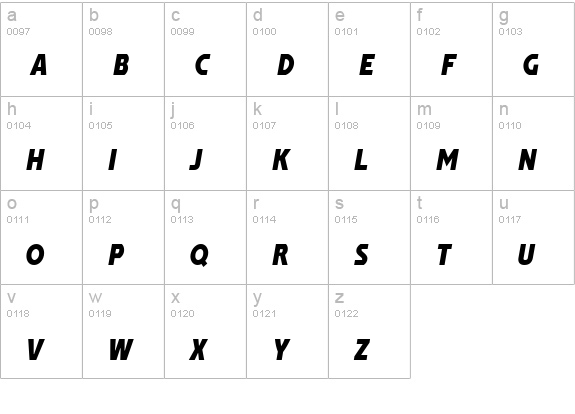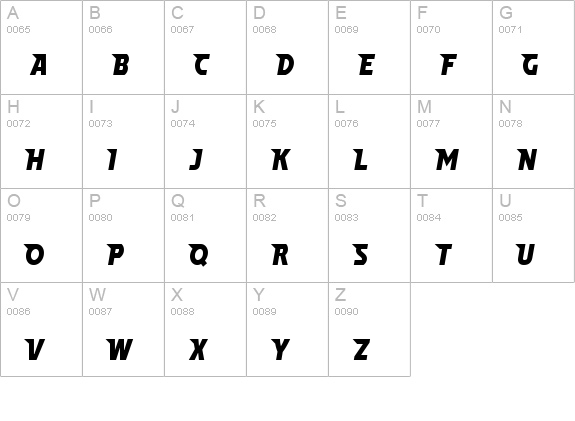
Windpower Font Details
Windpower font is a modern sans-serif typeface that exudes elegance and sophistication. With its sleek lines and contemporary style, this font is perfect for a wide range of design projects, from logos to branding to website design. The clean and minimalist aesthetic of Windpower makes it a versatile choice for both print and digital applications. What sets Windpower font apart is not just its striking design, but also the fact that it is available for free. Yes, you read that right – you can download Windpower font for free at FontsMarket.com. This means that you can enhance your projects with a high-quality font without having to spend a dime. Whether you're a designer looking for a new go-to font or just someone who appreciates beautiful typography, Windpower font is sure to impress. Don't miss out on the opportunity to elevate your designs with this stunning typeface, available for free download now at FontsMarket.com.